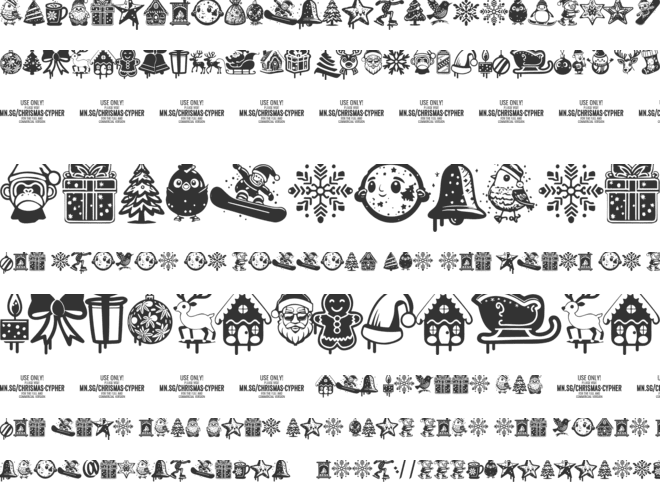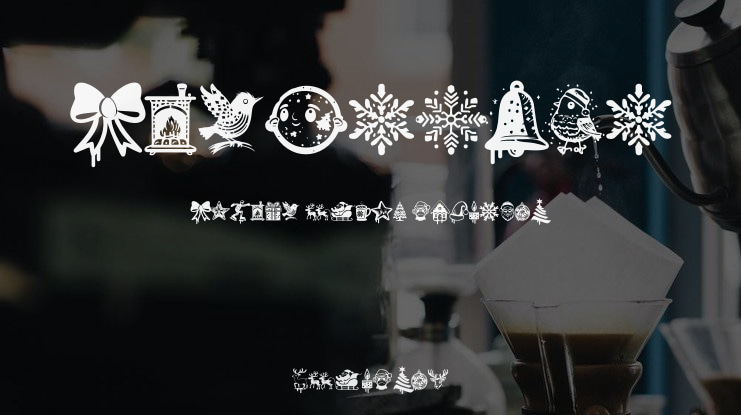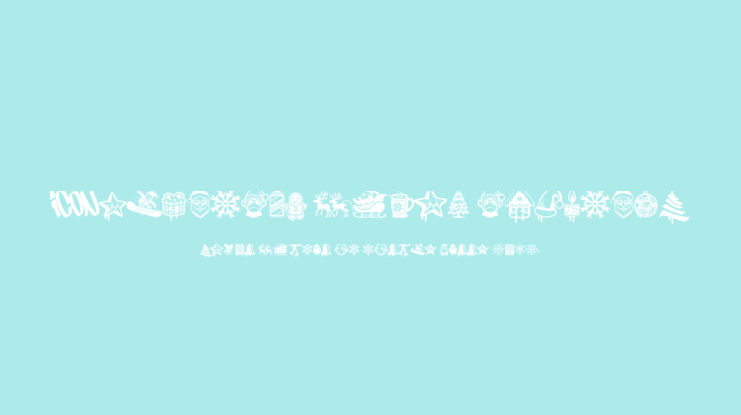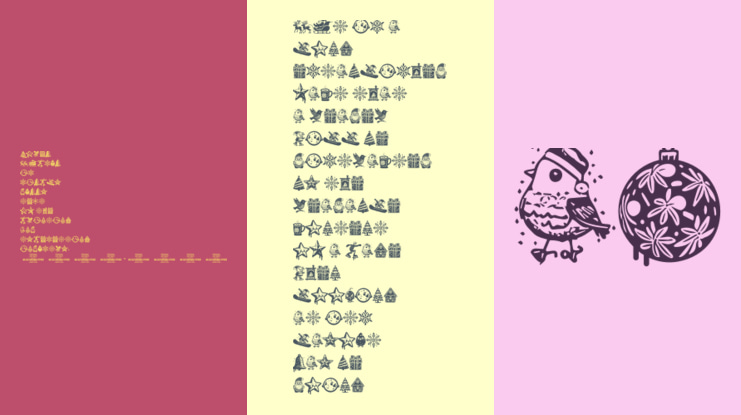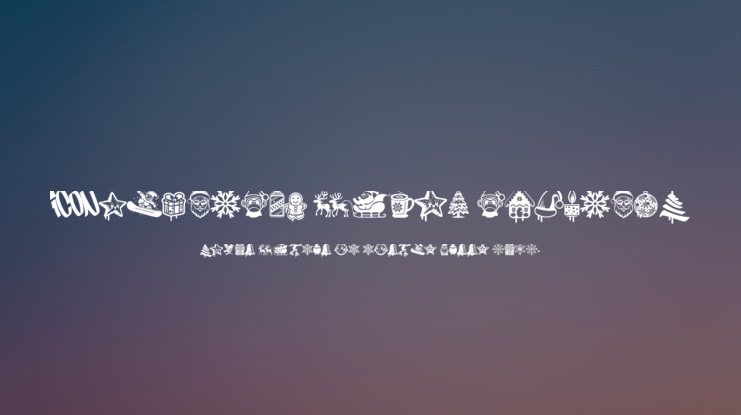
Christmas Cypher Icon PERSONAL Font Family
Mans Greback
Christmas Cypher is a font that captures the spirit of the streets during the festive season.
Inspired by graffiti art, this font adds a touch of urban flair while incorporating the magical elements of Christmas.
You can also use the included Icon font to create Christmas symbols like stars, Santas, gifts, and reindeers.
To create stars around a word, simply enclose it with parenthesis symbols () [], or {}. For instance: {Hiphop}Style